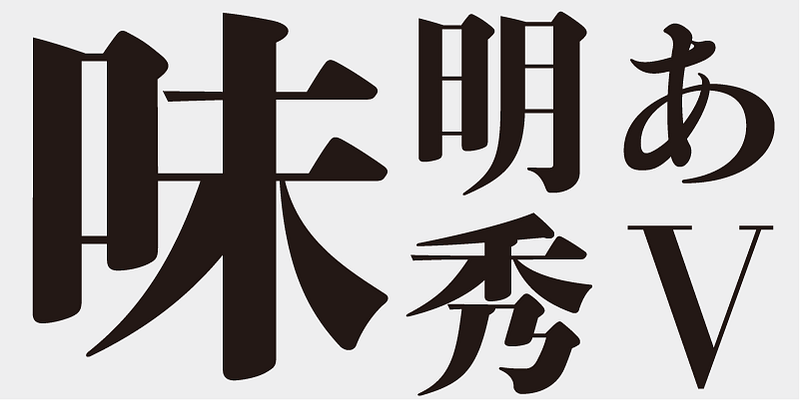
AB Ajimin Syu V/EB Font Free Download is a bold and refined Japanese Mincho-style serif typeface that exudes tradition, elegance, and expressive strength. The “V” in the name may refer to a variant style or version within the Syu (酒)-inspired series—suggesting cultural depth, possibly linked to sake or traditional Japanese refinement—while “EB” denotes the Extra Bold weight, perfect for display use where strong presence and heritage matter.
AB Ajimin Syu V/EB Font Free Download features dramatic stroke contrast, sharp and carefully designed serifs, and beautifully structured vertical flow—common to classic Mincho (明朝体) typefaces but optimized for bold, large-format typography. It’s ideal for upscale packaging (especially for food and drink), signage, traditional branding, book covers, and any design that needs to communicate with formality and sophistication.
The font supports a full range of Japanese characters including Hiragana, Katakana, and Kanji, along with Latin characters—making it perfect for bilingual or international design.
Rich, cultural, and visually commanding—AB Ajimin Syu V/EB Font is the ideal typeface for blending traditional Japanese elegance with bold, modern visual impact.